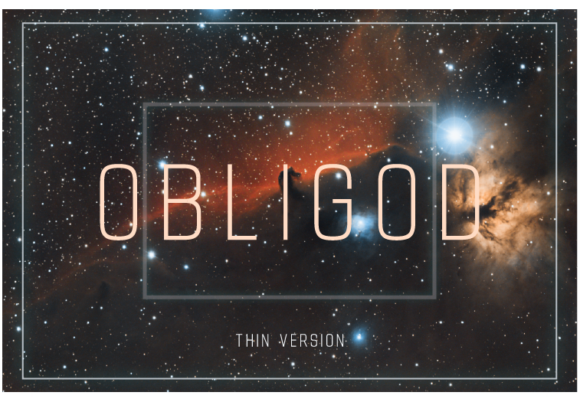
Obligod Outline Thin Font
Feast your eyes upon Obligod Outline Thin Font, an enchanting sans serif font that bestows a touch of timeless elegance to your creative endeavors. Delve into the world of typography with this remarkable font, meticulously crafted by the gifted Nan Design, and let your imagination soar.
Embark on a journey through the realms of design, armed with Obligod Outline Thin Font's captivating presence. Its delicate strokes, reminiscent of a calligrapher's quill, lend an air of sophistication and charm to every letterform. Experience the harmony of classic serif influences, seamlessly intertwined with a modern, minimalist aesthetic.
Whether you're a seasoned designer or just starting your creative voyage, Obligod Outline Thin Font is your steadfast companion, ready to elevate your designs to new heights. Its versatility knows no bounds, effortlessly adapting to a myriad of projects. Envision your logos adorned with its refined grace, your branding imbued with a touch of timeless allure, and your packaging designs exuding an air of understated luxury.
Unleash the boundless possibilities of Obligod Outline Thin Font and let your creativity flourish. Its presence will transform your designs into captivating works of art, captivating the attention of your audience and leaving an indelible mark on their minds. Join the ranks of discerning designers who have embraced the beauty of Obligod Outline Thin Font and witnessed the transformative power it brings to their creations.